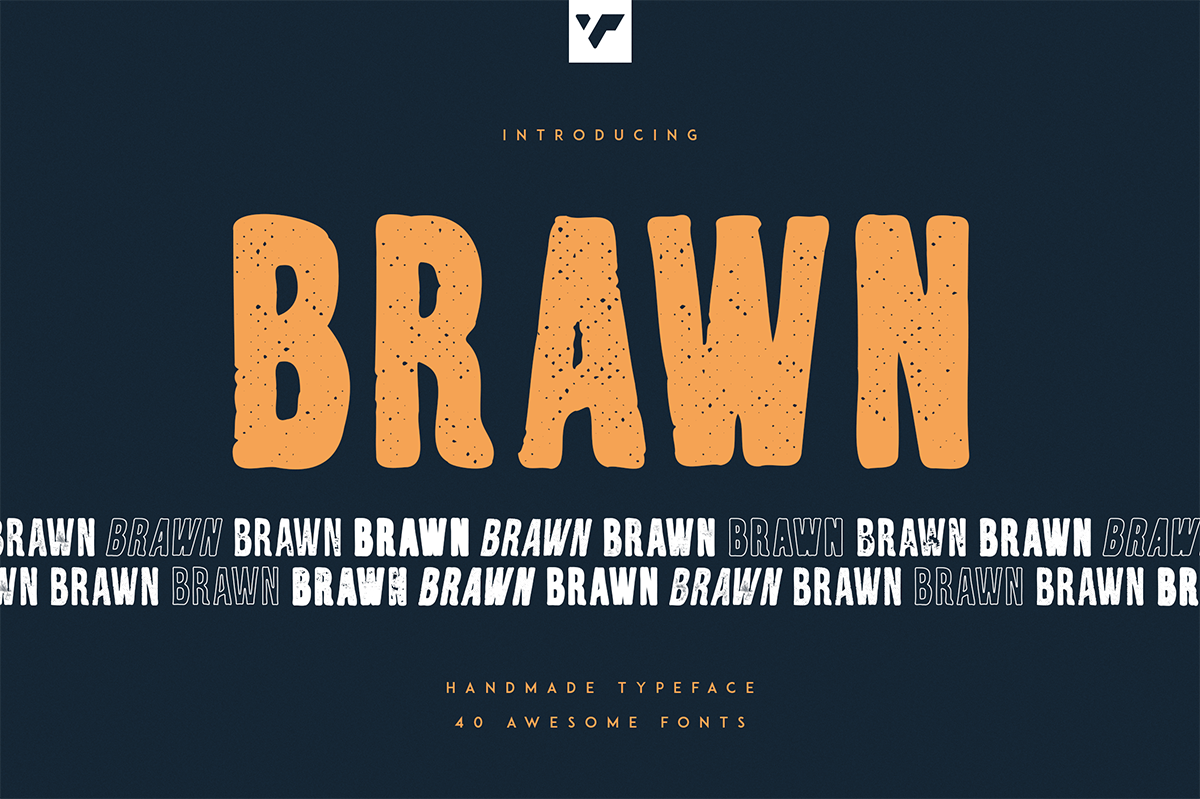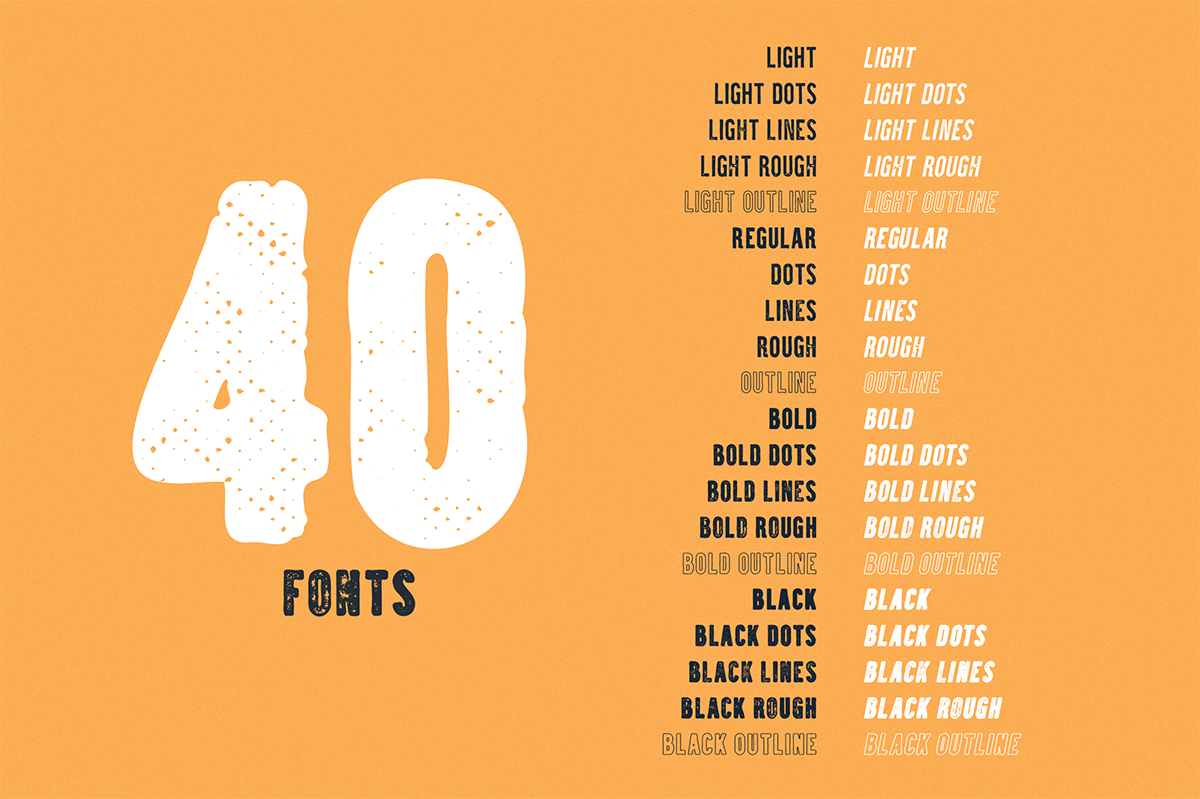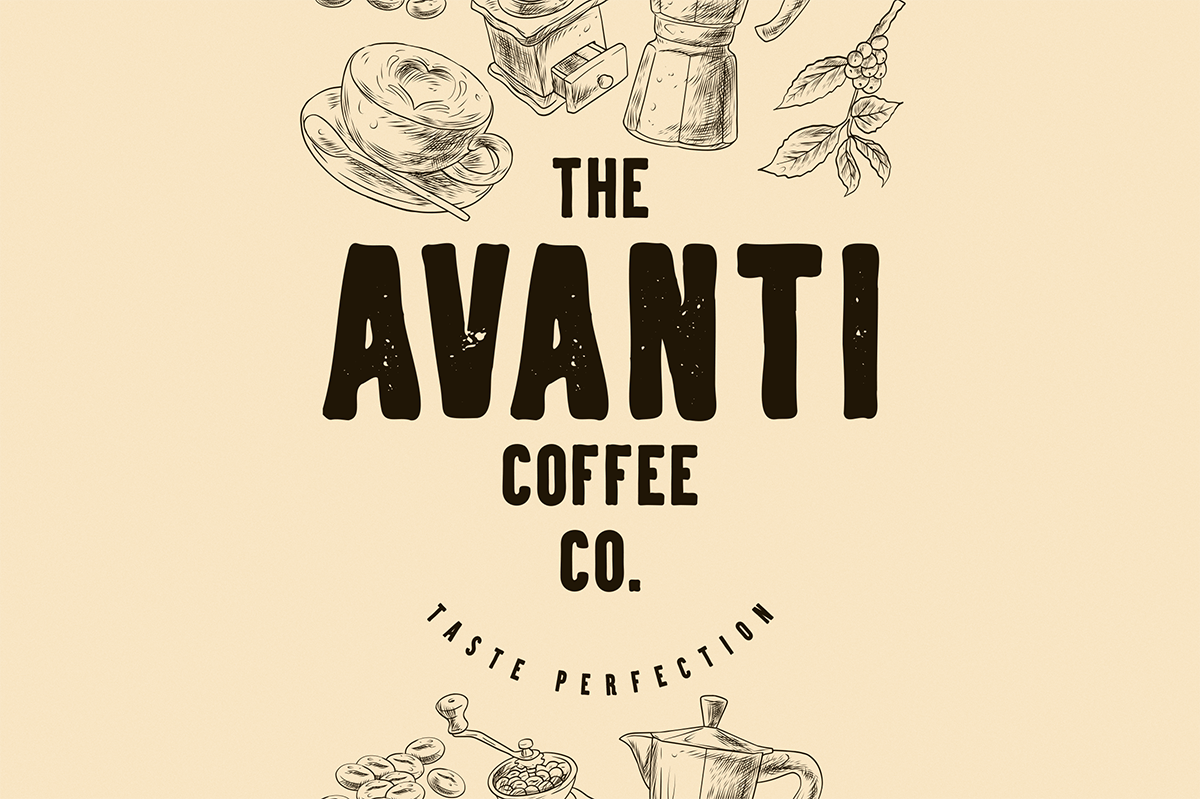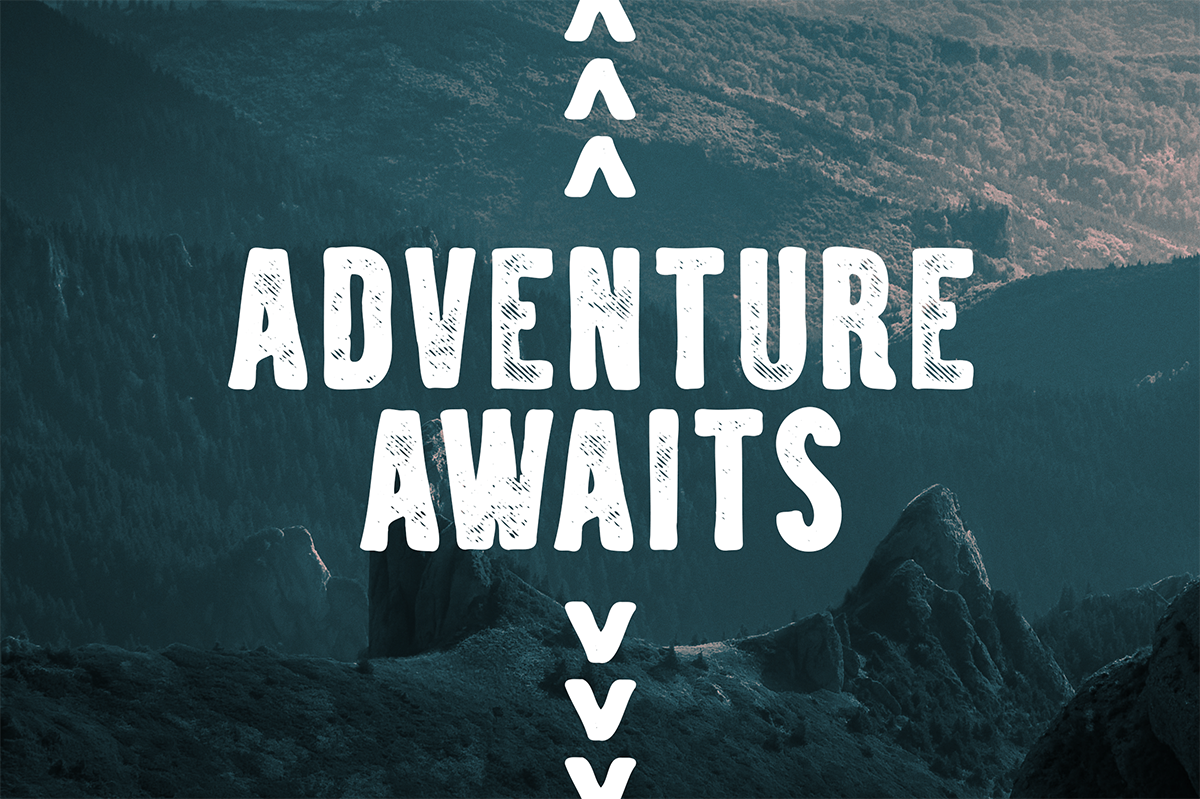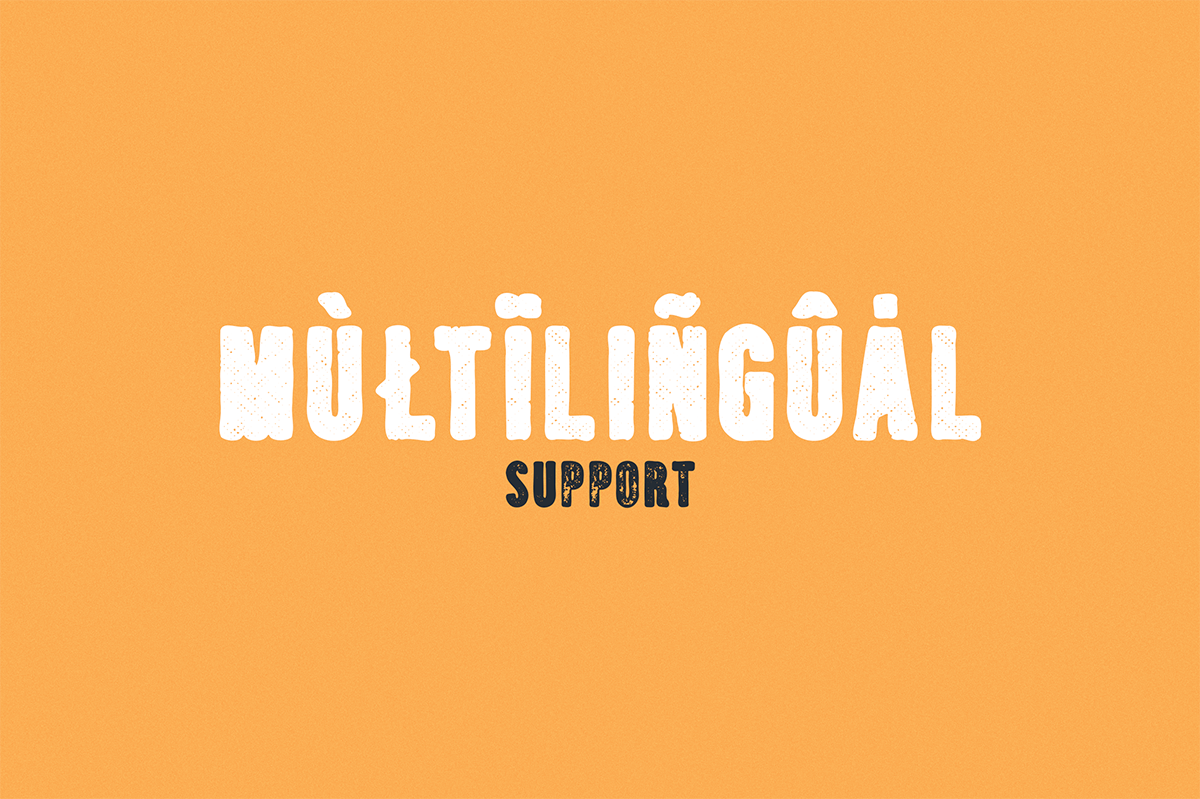
Brawn Italic Dots Font is handwritten and retro typeface. It comes with multilingual support to enchant your next project. Very versatile fonts that works great in large and small sizes. It is perfect for branding projects, home-ware designs, product packaging, magazine headers – or simply as a stylish text overlay to any background image.